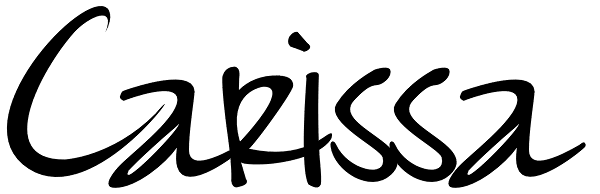
Carissa
Everyone likes getting a handwritten letter. At least, they would if anyone still hand wrote letters. We heard a story about a type designer who gets a Christmas card from his niece. He’s been out of touch with her for years and is both delighted...